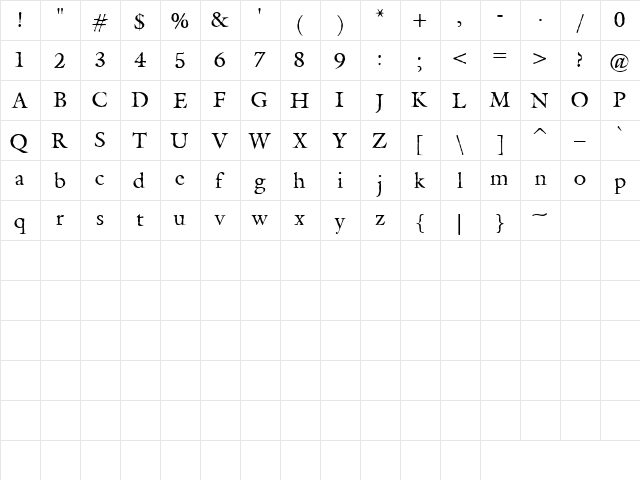
CK Invitation Regular Font Preview
CK Invitation Regular
Design Context for CK Invitation Typeface
CK Invitation is a composed and adaptable typeface that performs quietly and consistently across a wide range of design contexts.